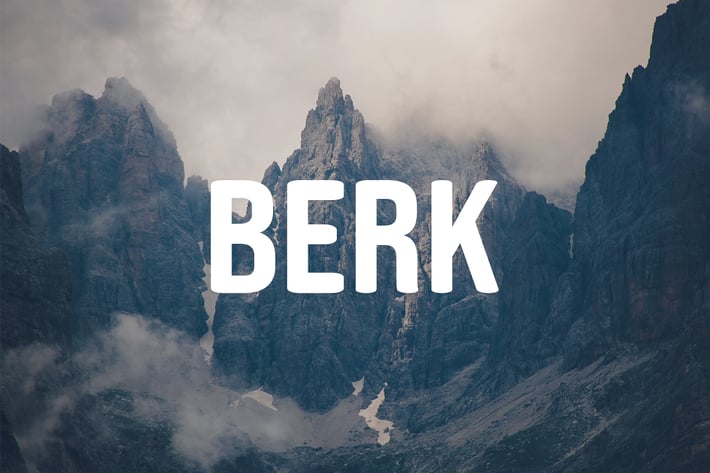
BERK - Unique Display / Headline Typeface
BERK is a unique and modern all-caps typeface for headlines, big text, branding, logotypes & display usage. This font is also perfect for creating outstanding logos, promotional content and marketing graphics that can really grab attention from your visitors. Please see the examples shown above to get an idea about the capability of this typeface.